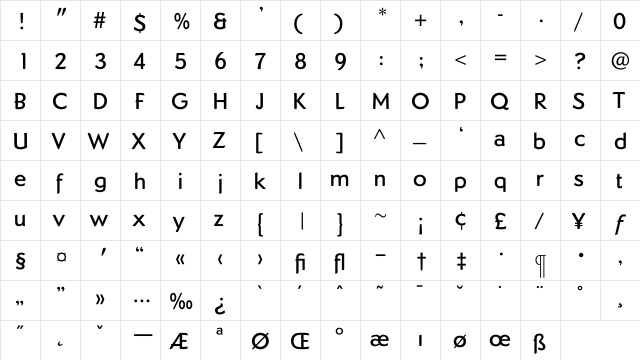
DundeeMedium Regular
Design Context for DundeeMedium Typeface
DundeeMedium is a composed and adaptable typeface that performs quietly and consistently across a wide range of design contexts.